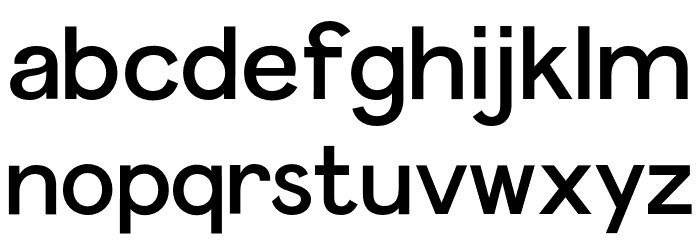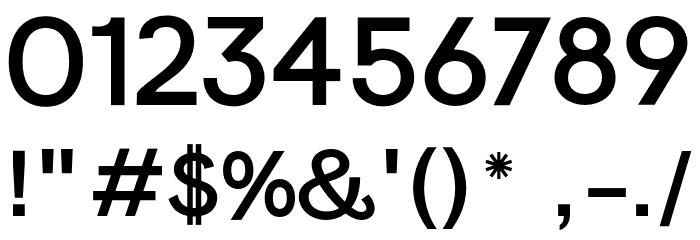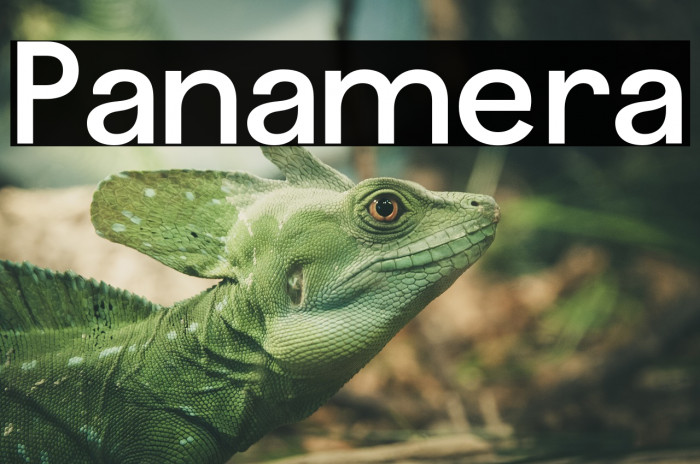
Panamera Font
This font exhibits a clean and modern sans-serif style, characterized by its geometric shapes and uniform stroke widths. The uppercase letters are bold and assertive, while the lowercase letters maintain a consistent and harmonious appearance. The numerals are clear and easily distinguishable, making them suitable for various applications. Special characters are well-defined, adding to the font's versatility. The overall design is sleek and contemporary, ideal for projects that require a professional and polished look.
A modern sans-serif font with geometric shapes and uniform strokes.
- Proposed Projects: Ideal for branding, web design, advertising, and editorial projects.